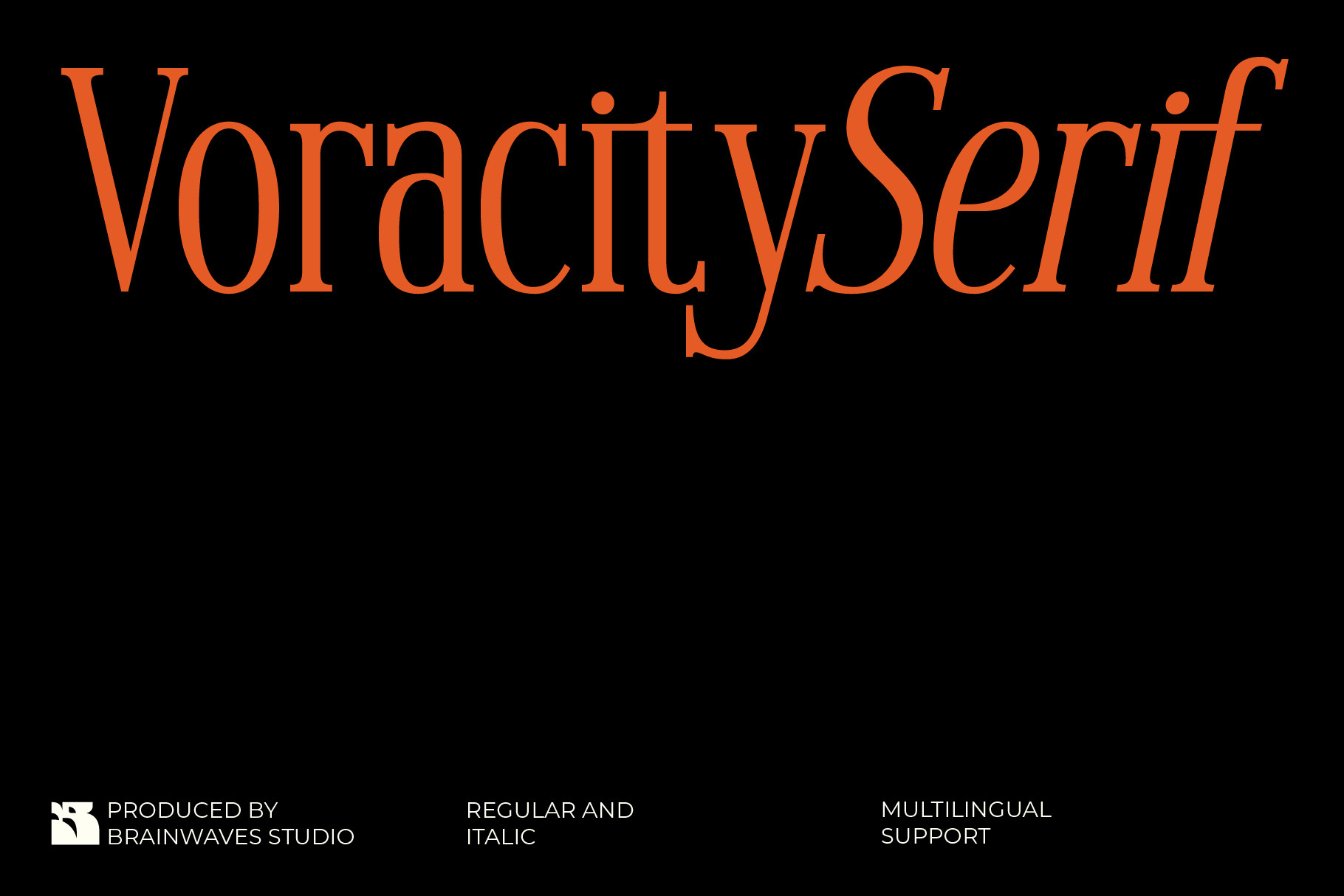
Voracity - Serif Display Font
Introducing Voracity Serif, timeless serif aesthetics with a sleek, modern feel. this font is the perfect solution for designs requiring luxury, sophistication, and professionalism. Voracity Serif is more than just a typeface—it’s a statement of style. Begin your design journey with a font that speaks the language of elegance!